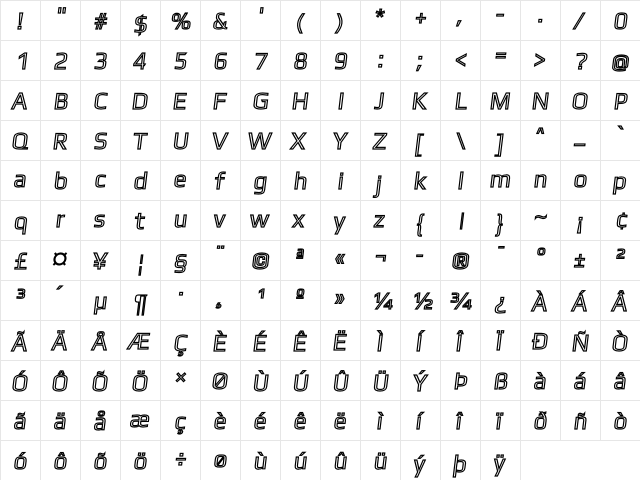
Gamestation Text Outline Italic
| Foundry | Jonas Hecksher, Playtype-types AS |
| Designer | Jonas Hecksher |
Design Context for Gamestation Text Outline Typeface
Gamestation Text Outline is built around its visual character rather than neutral utility — its distinctive forms are designed to make an impression at display sizes. The dynamic lean of this cut emphasises speed and emphasis in any layout.
Font Pairing: Pair with a clean neutral sans-serif for body copy to let Gamestation Text Outline's character lead without overwhelming the composition.
Pro Tip: Use Gamestation Text Outline exclusively at display sizes — it was designed to be seen, not read at length. Let a neutral companion handle body copy.